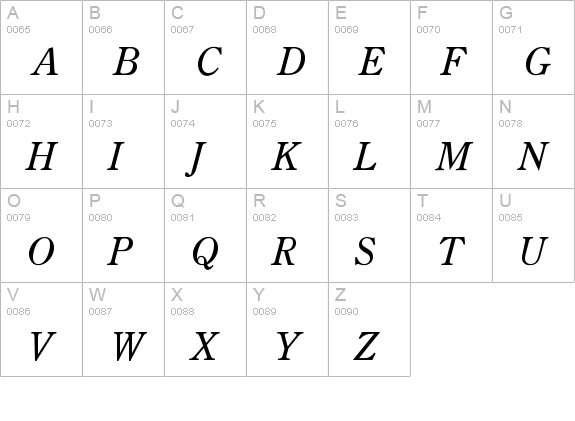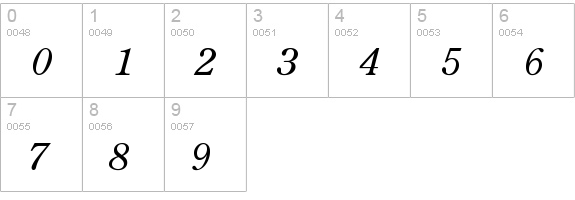
Century Old Style Italic Font Details
Century Old Style Italic is a distinctive, italic variant in the Century typeface family \xE2\x80\x94 well suited to design and typography projects.
Century Old Style Italic font is a timeless and elegant typeface that exudes sophistication and class. Its graceful slanted style adds a touch of refinement to any design project, making it perfect for invitations, branding, and other creative endeavors. The intricate details and historical charm of this font evoke a sense of nostalgia while still feeling fresh and contemporary. What sets Century Old Style Italic font apart is its versatility and readability, making it suitable for a wide range of applications. Whether you're looking to add a touch of vintage flair to your project or simply want a font that stands out from the crowd, Century Old Style Italic is sure to impress. Best of all, Century Old Style Italic font is available for free download at FontsMarket.com, allowing you to access this stunning typeface without breaking the bank. Don't miss out on the opportunity to enhance your designs with this classic and stylish font today!